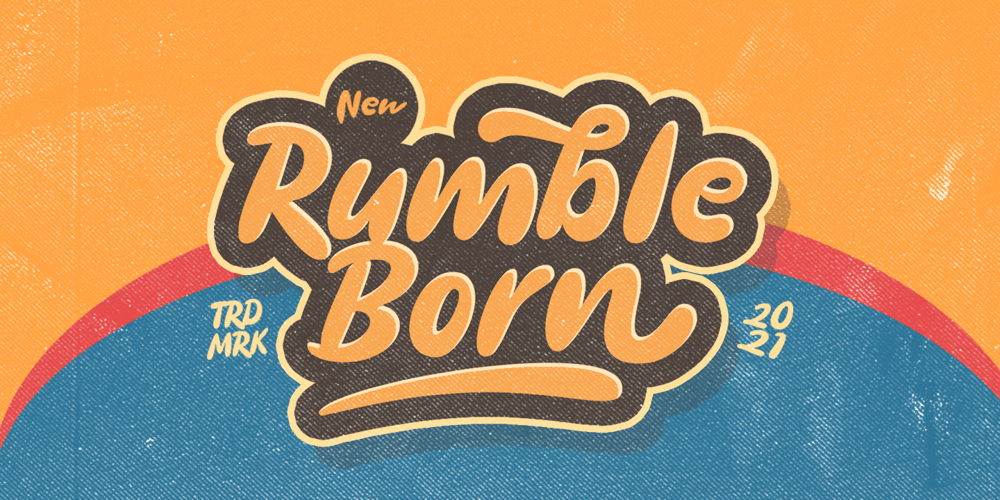
Rumble Born
Rumble Born font
Rumble Born Font Family was designed by Hendry Juanda and published by Letterhend. Rumble Born contains 1 styles and family package options. Rumble Born is a retro bold script which will bring you back to 60s feel but still with fun and playful look. This font perfectly made to be applied especially in logo, and the other various formal forms such as invitations, labels, logos, magazines, books, greeting / wedding cards, packaging, fashion, make up, stationery, novels, labels or any type of advertising purpose.Features :uppercase & lowercasenumbers and punctuationmultilingualligaturesalternatesswashesPUA encodedWe highly recommend using a program that supports OpenType features and Glyphs panels like many of Adobe apps and Corel Draw, so you can see and access all Glyph variations. For accessing opentype feature, kindly check this link letterhend.com/tutorials/using-opentype-feature-in-any-software/Email us to letterhend@gmail.com if you need something! Happy Designing!